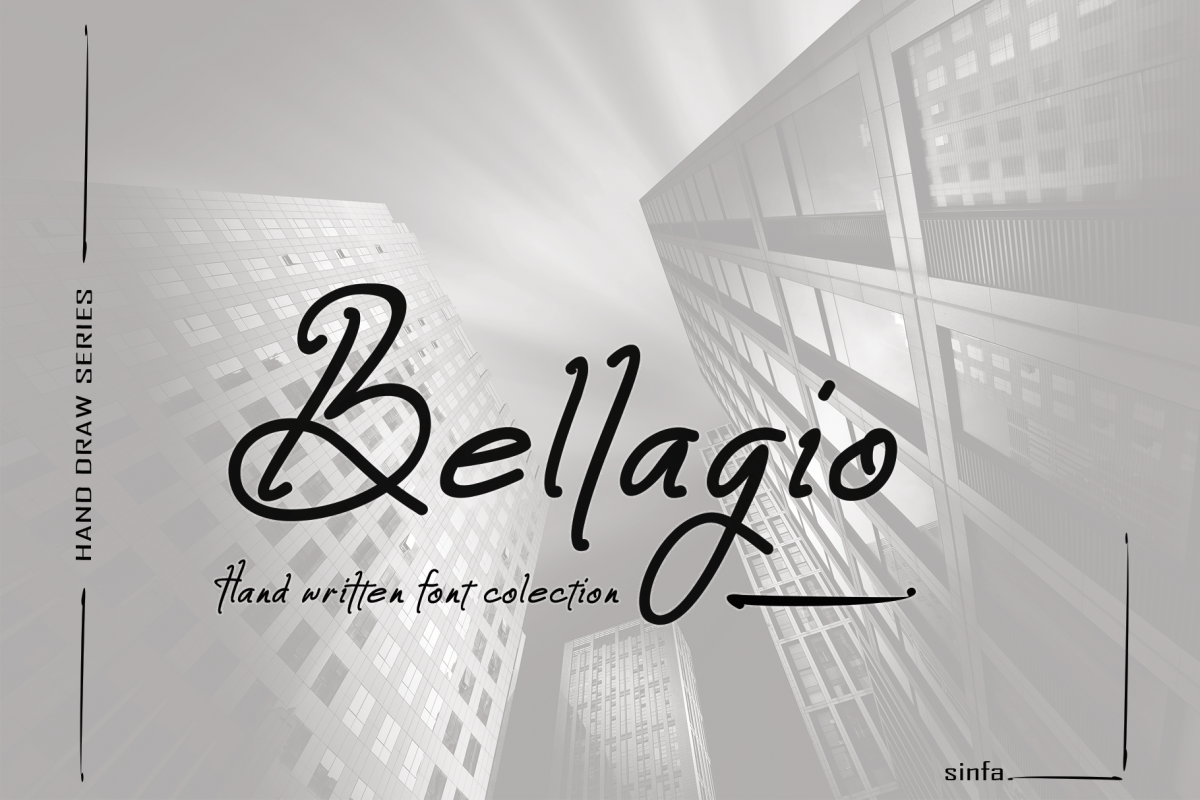
Bellagio
** Bellagio Font**- new of my product to complete your colection preasent by new style font & frees  script font servent with hand draw taste looks natural and frees .
** Bellagio font script **very suitable and feels perfect for invitations, product design, labels, stationery, wedding designs, photography, watermarks, social media posts, advertisements, logos & branding, product packaging, and other needs that are in accordance with the wishes of users ...
- alternatif character